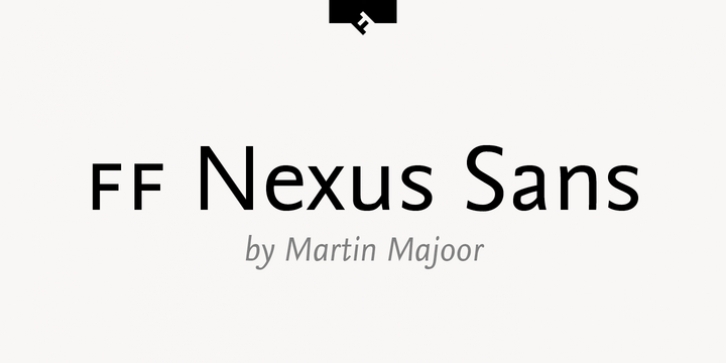
Dutch type designer Martin Majoor created this sans FontFont in 2004.
The family contains 4 weights: Regular, Italic, Bold, and Bold Italic and is ideally suited for advertising and packaging, book text, editorial and publishing, logo, branding and creative industries, poster and billboards as well as small text.
FF Nexus Sans provides advanced typographical support with features such as ligatures, small capitals, alternate characters, case-sensitive forms, fractions, and super- and subscript characters.
It comes with a complete range of figure set options – oldstyle and lining figures, each in tabular and proportional widths.
In 2006, FF Nexus Sans received the Creative Review Type Design award.
This FontFont is a member of the FF Nexus super family, which also includes FF Nexus Mix, FF Nexus Serif, and FF Nexus Typewriter.